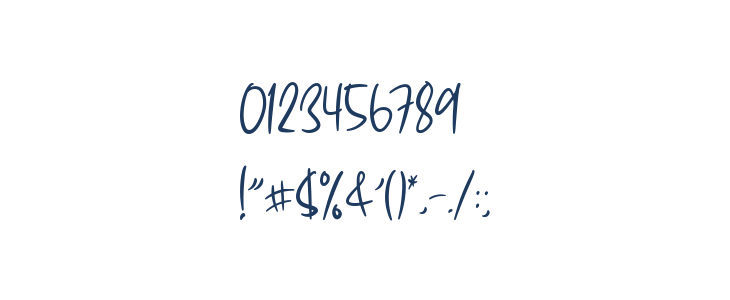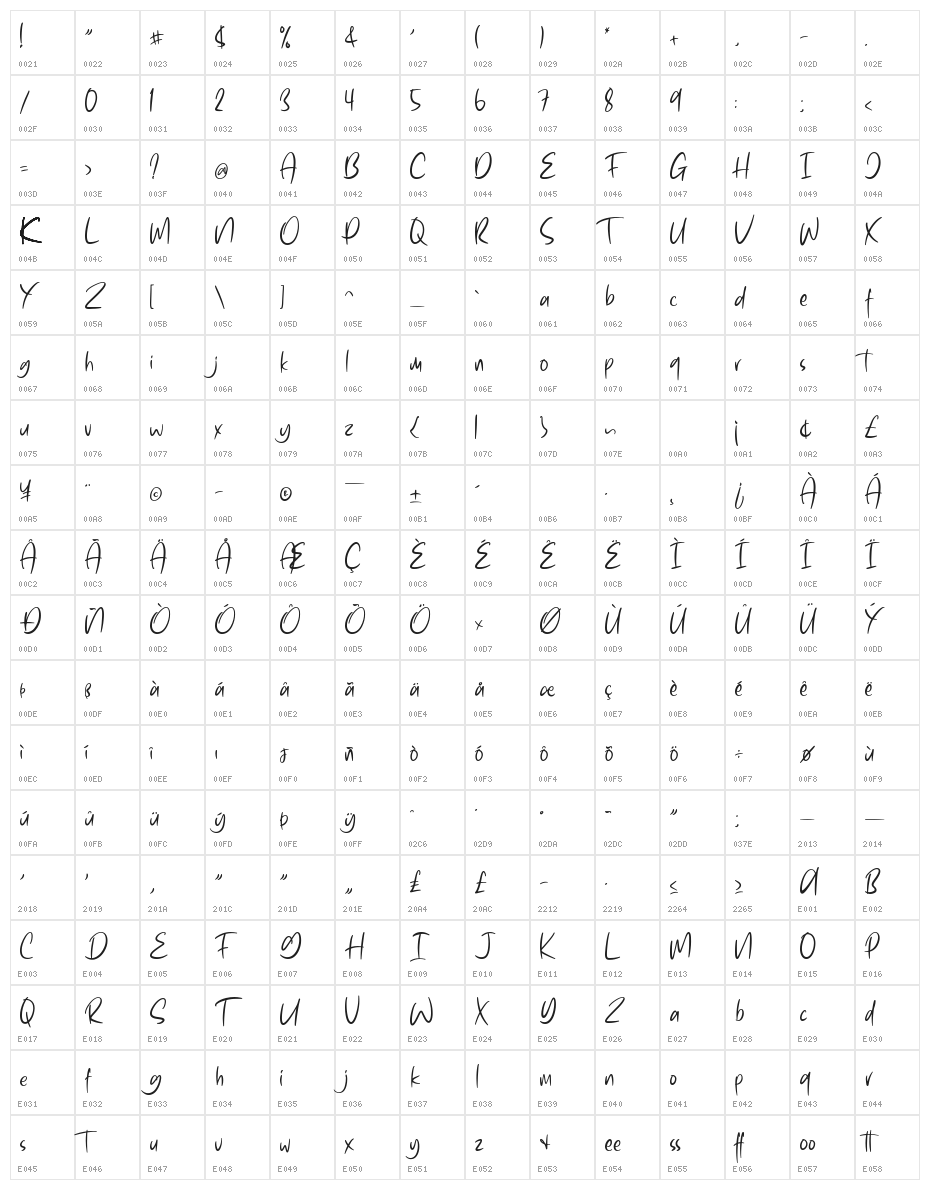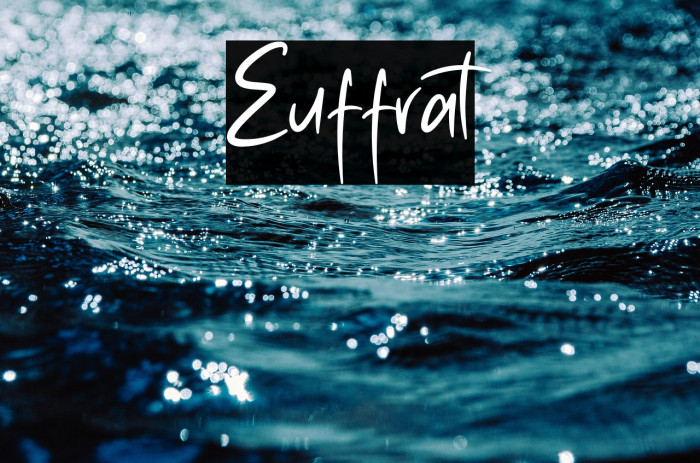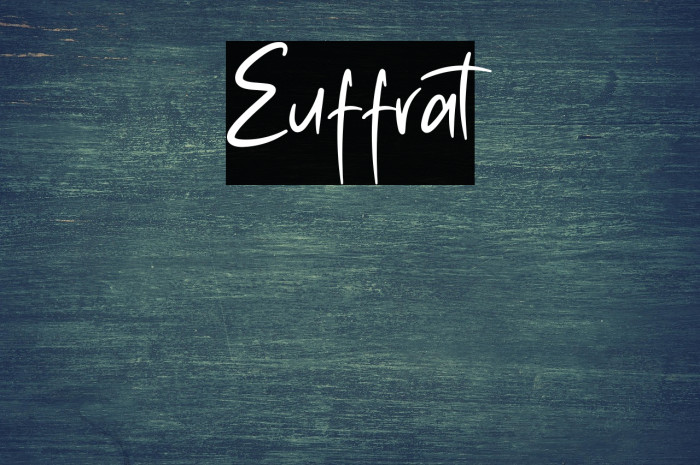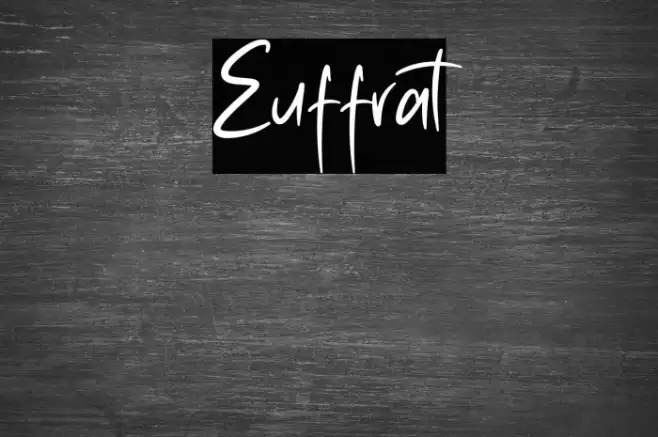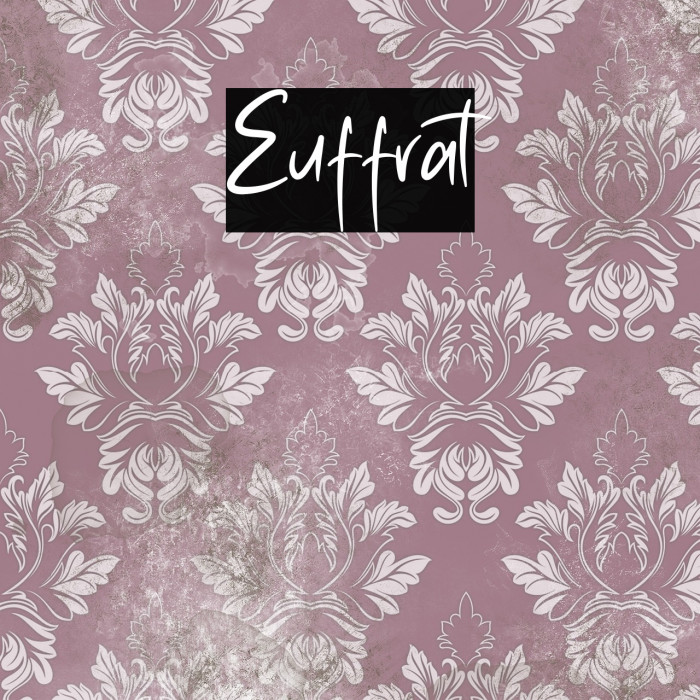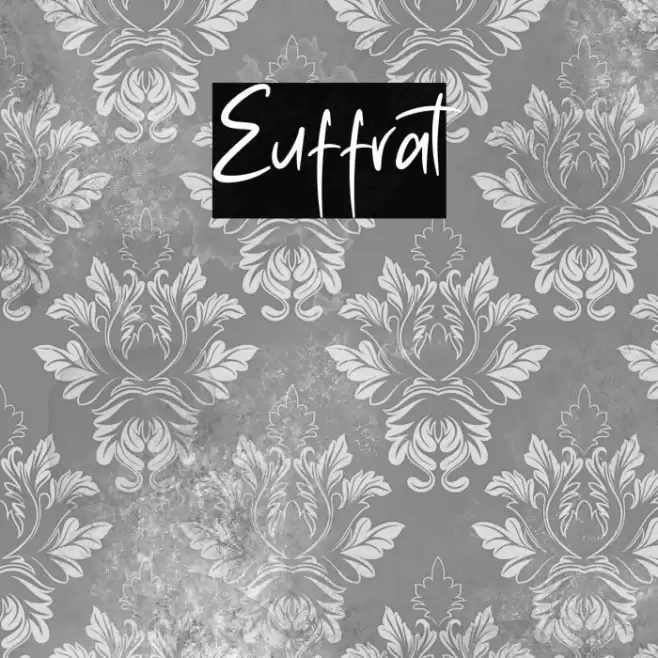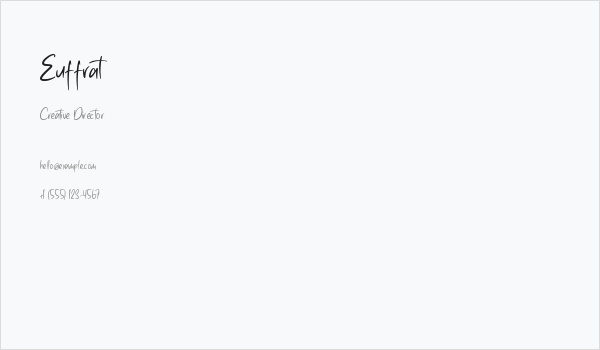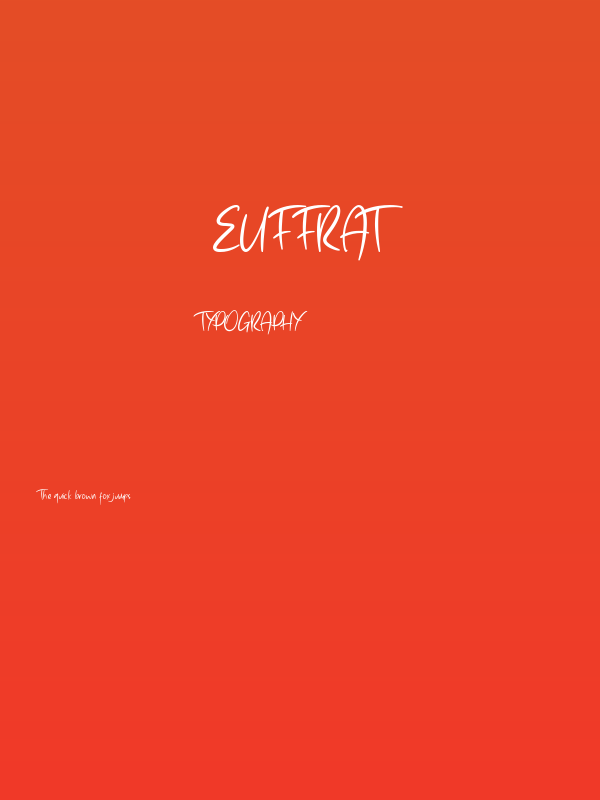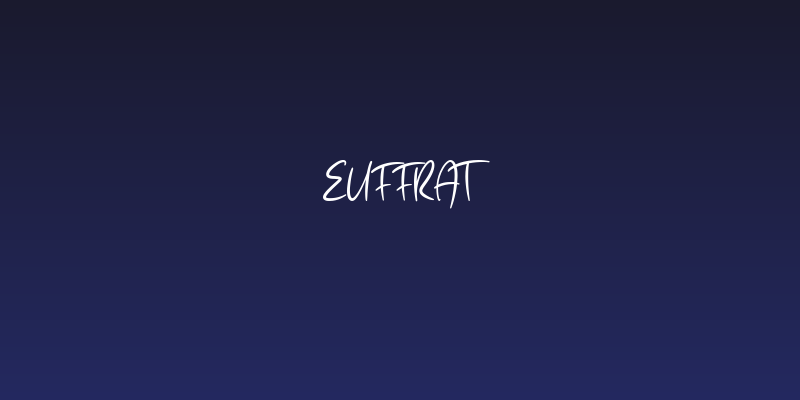
Euffrat Font
Euffrat Description
This font exhibits a lively and dynamic handwritten style, characterized by its fluid and slightly irregular strokes that mimic natural handwriting. The uppercase letters are bold and expressive, with a slight slant that adds to the casual and informal feel. The lowercase letters maintain a consistent flow, enhancing readability while preserving the handwritten aesthetic. Numbers and special characters are crafted with the same attention to detail, ensuring a cohesive look across all glyphs. The overall appearance is playful yet sophisticated, making it suitable for a variety of creative projects.
| Proposed Projects | Ideal for greeting cards, invitations, personal branding, and creative social media graphics. |